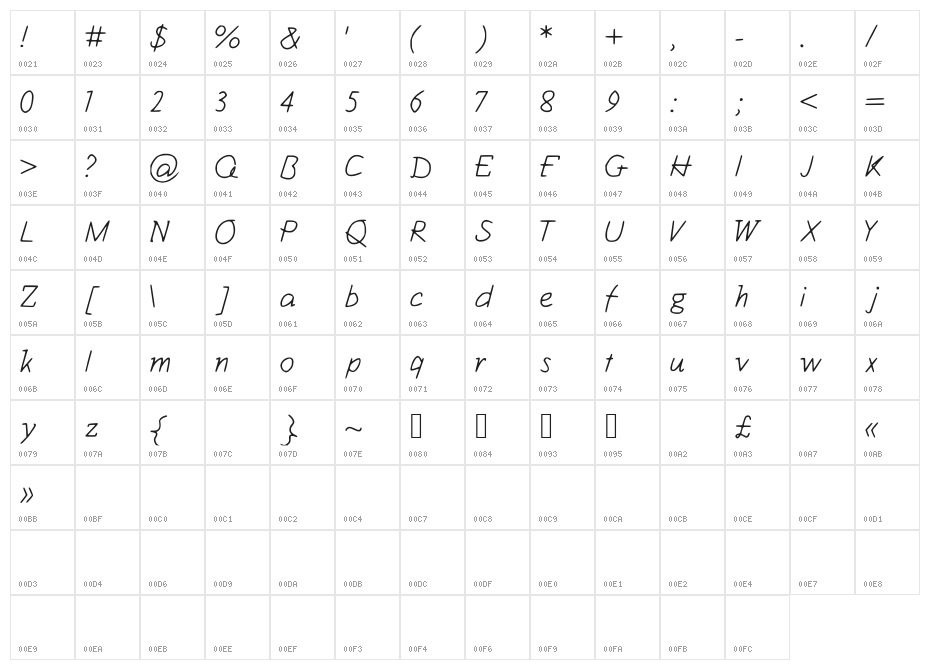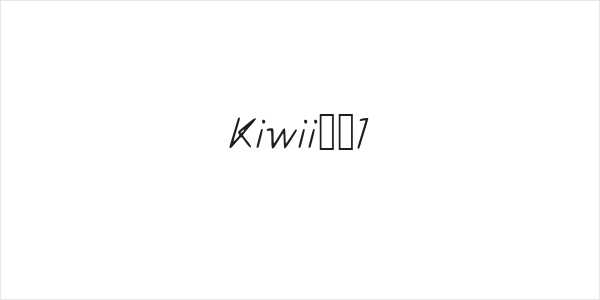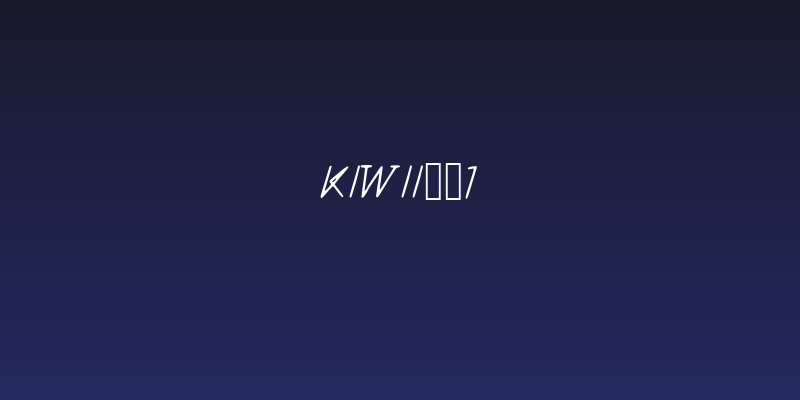
Kiwii__1 Font
Kiwii__1 Description
This font features a handwritten style with a casual and flowing appearance. The letters are slightly slanted, giving it an informal and approachable feel. The strokes are consistent in width, providing a uniform look across all characters. The uppercase letters are distinct and easily readable, while the lowercase letters maintain a smooth and connected form. Numbers and special characters are clearly defined, complementing the overall style. This font is versatile, suitable for projects that require a personal touch or a relaxed aesthetic.
| Use Case | Headlines, Invitations, Personal notes |
| Proposed Projects | Ideal for greeting cards, personal invitations, casual branding, and social media graphics. |